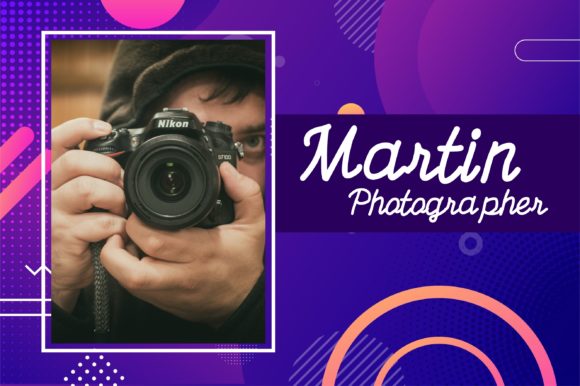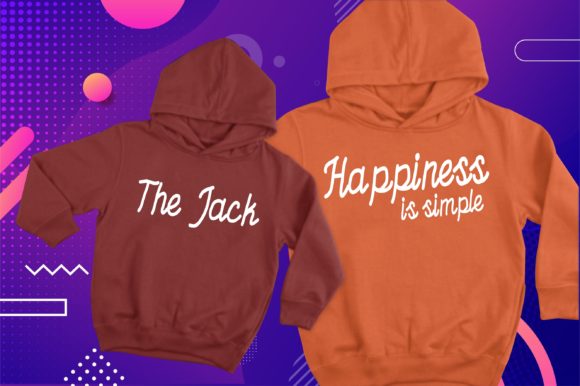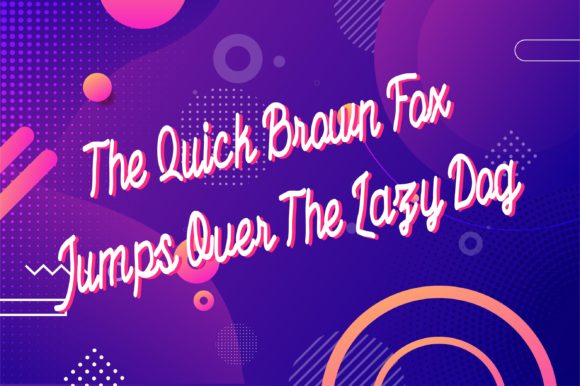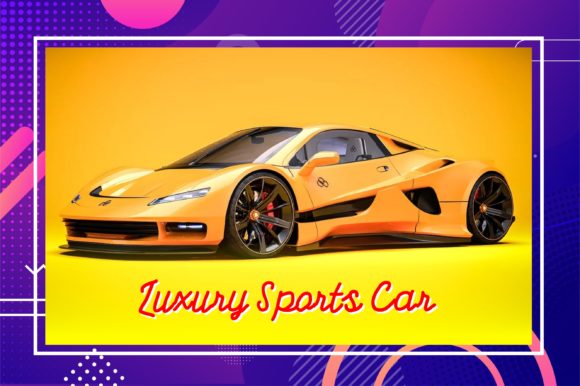
About Fresh Happy Font
Fresh Happy is a natural and cursive handwritten font. This gentle font will look gorgeous on a variety of design ideas. It will add a joyful and romantic touch to each of your projects!